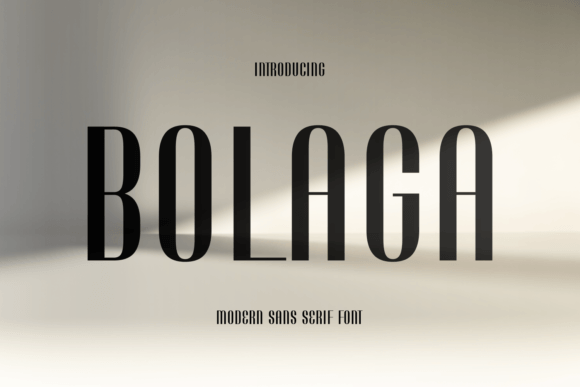
Introducing Bolaga Font, a masterpiece created by Damai from 7NTypes. This elegant and modern sans serif font is the perfect addition to your collection of fonts. With its minimalist and clean vibe, Bolaga can effortlessly enhance your favorite designs, from captivating book covers to eye-catching magazines.
Are you tired of scrolling through countless fonts, searching for the one that perfectly complements your vision? Look no further, as Bolaga is the answer to your prayers. Its sleek and stylish appearance will captivate your audience and leave a lasting impression.
Whether you're working on a technical book, designing a social media post, or creating stunning invitations, Bolaga is the ultimate choice. Its versatility knows no bounds, allowing you to explore endless creative possibilities. Let your imagination run wild as you effortlessly bring your ideas to life.
With Bolaga Font, your designs will exude professionalism and sophistication. The carefully crafted letters and precise spacing create a seamless reading experience, making it ideal for any project that requires clarity and legibility.
Stand out from the crowd and elevate your designs with Bolaga Font. Embrace the power of this font to captivate your audience and convey your message with style. Watch as your designs come to life, leaving a lasting impact on anyone who lays eyes on them.